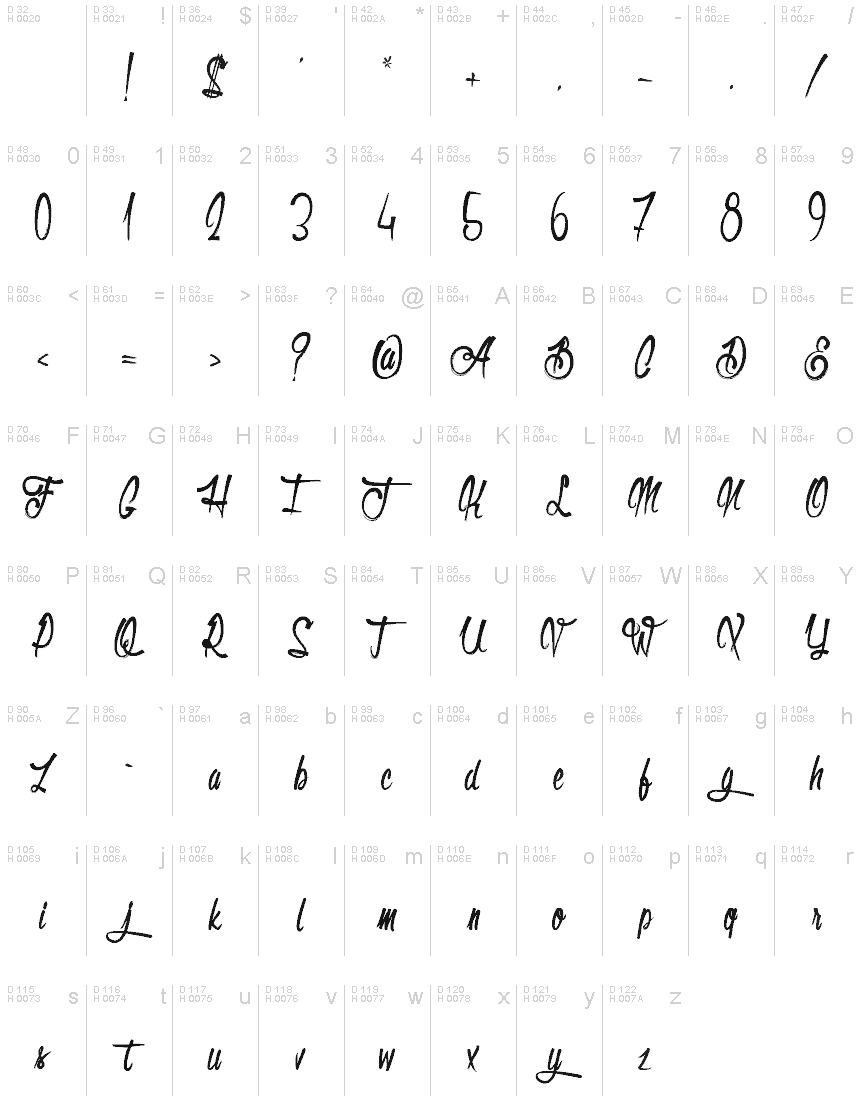
Olympic Branding
"Olympic Branding" is a captivating brush font that exudes a sense of energy and dynamism. Designed by Maelle.K and Thomas Boucherie, this condensed typeface boasts a striking, hand-crafted aesthetic. The bold, sweeping strokes effortlessly convey a strong, confident presence, making it an excellent choice for branding, logos, and headlines. Its versatile nature allows it to seamlessly integrate into a wide range of design contexts, from sports-related projects to modern, urban-inspired brand identities.
The font's unique personality and impactful visual style make it a compelling option for designers seeking to make a bold, memorable statement.